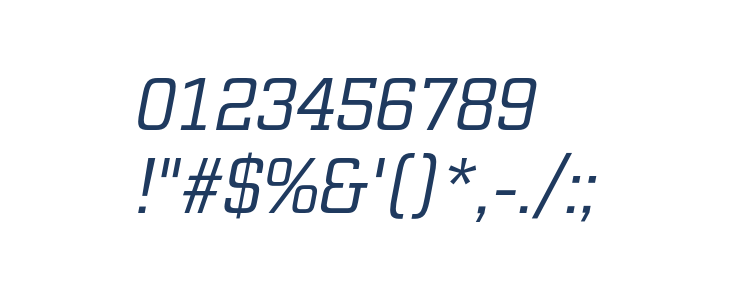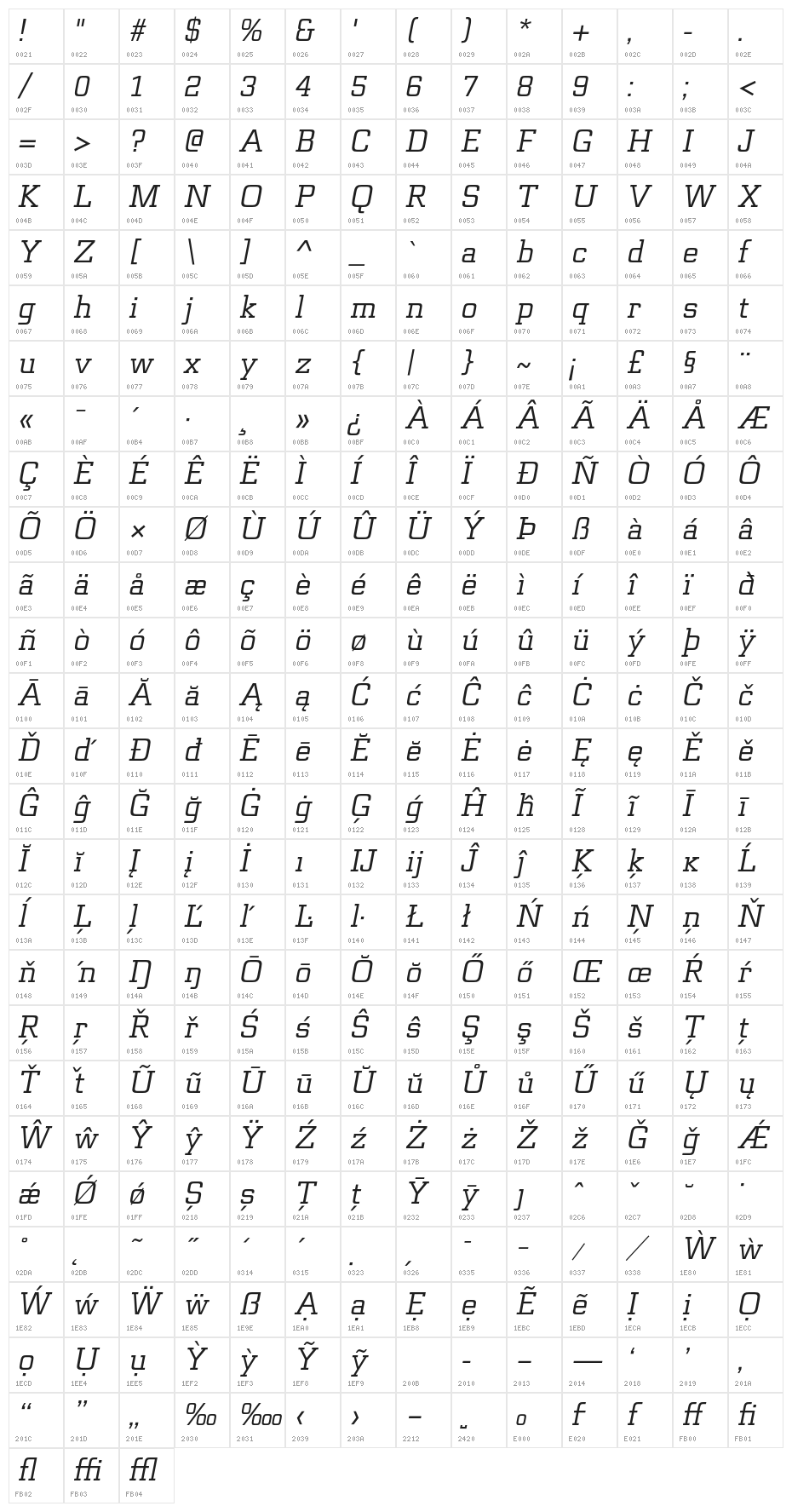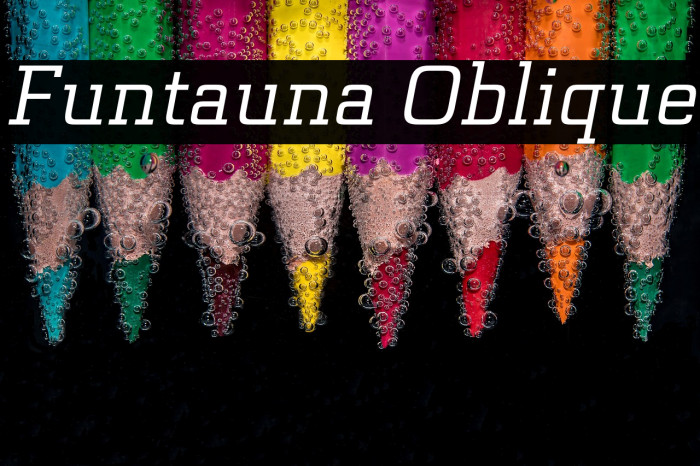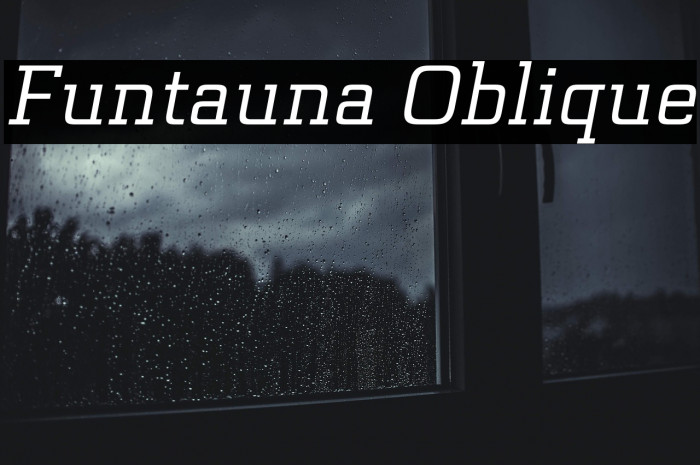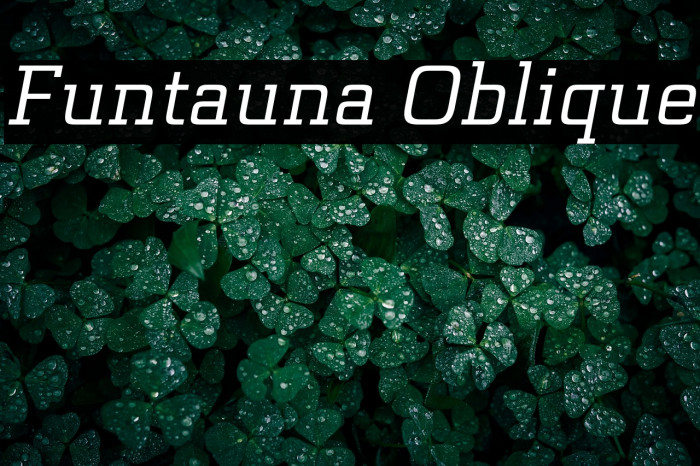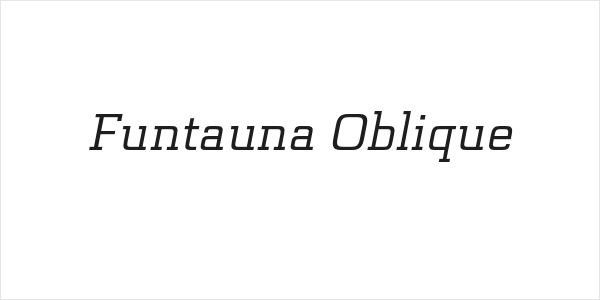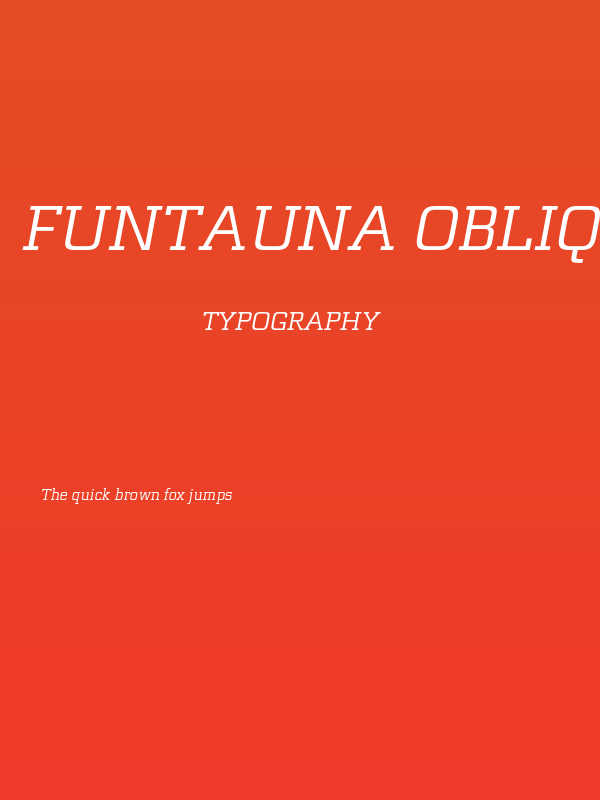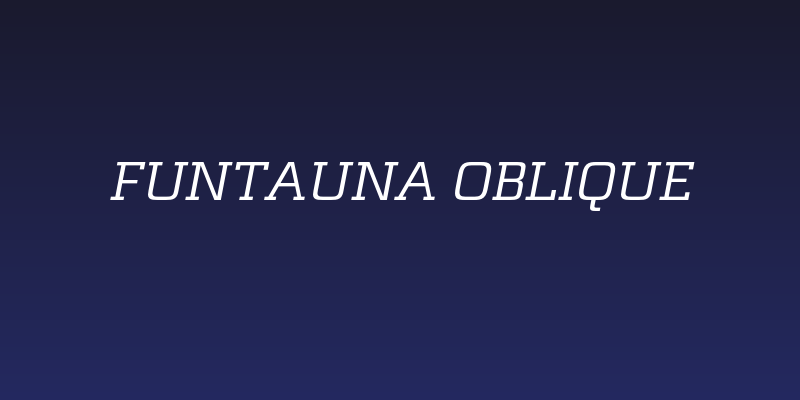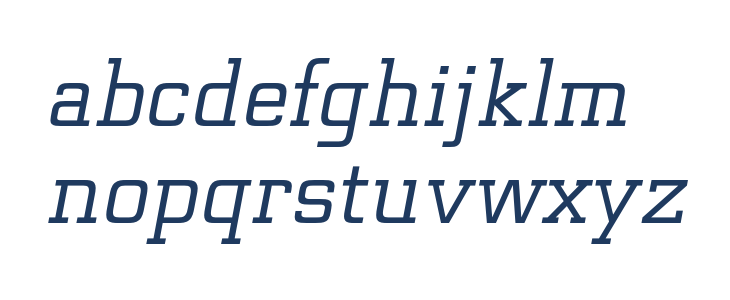
Funtauna Oblique Font
Funtauna Oblique Description
This font features an oblique style with a modern and sleek appearance. The characters are slightly slanted, giving a dynamic and forward-moving impression. The uppercase letters are bold and well-defined, while the lowercase letters maintain a consistent style with a touch of elegance. The numerals are clear and easy to read, making them suitable for various applications. Special characters are distinct and match the overall aesthetic, ensuring versatility in design projects. The font's clean lines and subtle curves make it ideal for contemporary designs.